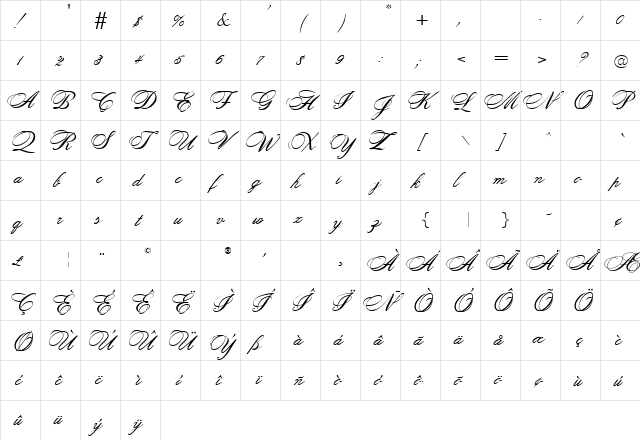
OPCitS-ScripT ScripT Font Preview
OPCitS-ScripT ScripT
OPCitS-ScripT ScripT Font Details
| Style | ScripT |
Design Context for OPCitS-ScripT Typeface
OPCitS-ScripT flows with the natural rhythm of handwritten lettering, making it ideal for designs that call for warmth and personal expression.